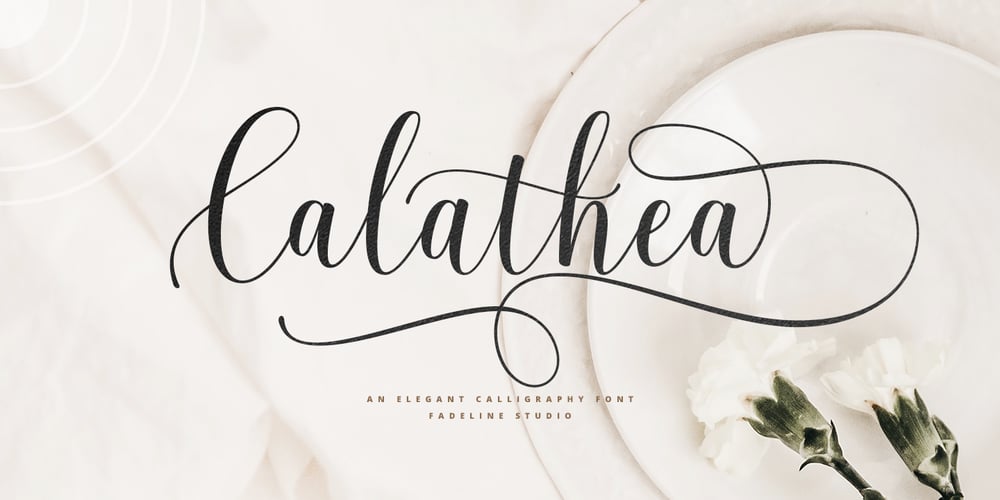
Calathea Script
Calathea Script font
Calathea Script Font Family was designed by Juni Fadil Putra and published by FadeLine Studio. Calathea Script contains 1 styles and family package options. Introducing Calathea! This is an elegant calligraphy font that has a casual and luxurious style. This is an upright script font that is made slowly and thorough which aims to convey the character of the writing that is elegant, neat, simple, graceful, firm and still stylish. Available 584 glyphs in it! So, you can get used it freely and follow the current trends.